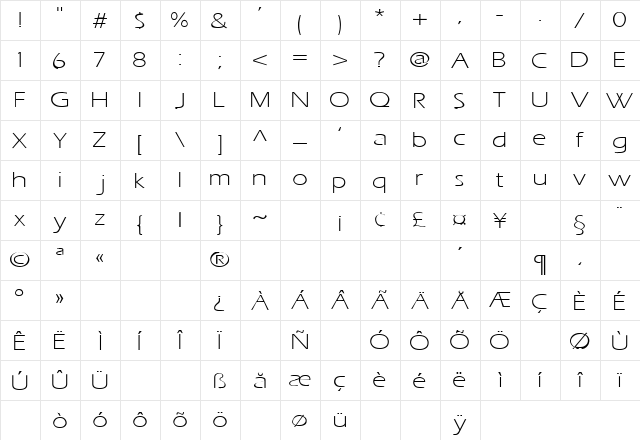
Presence 14 Regular
Design Context for Presence 14 Typeface
Presence 14 is a composed and adaptable typeface that performs quietly and consistently across a wide range of design contexts.